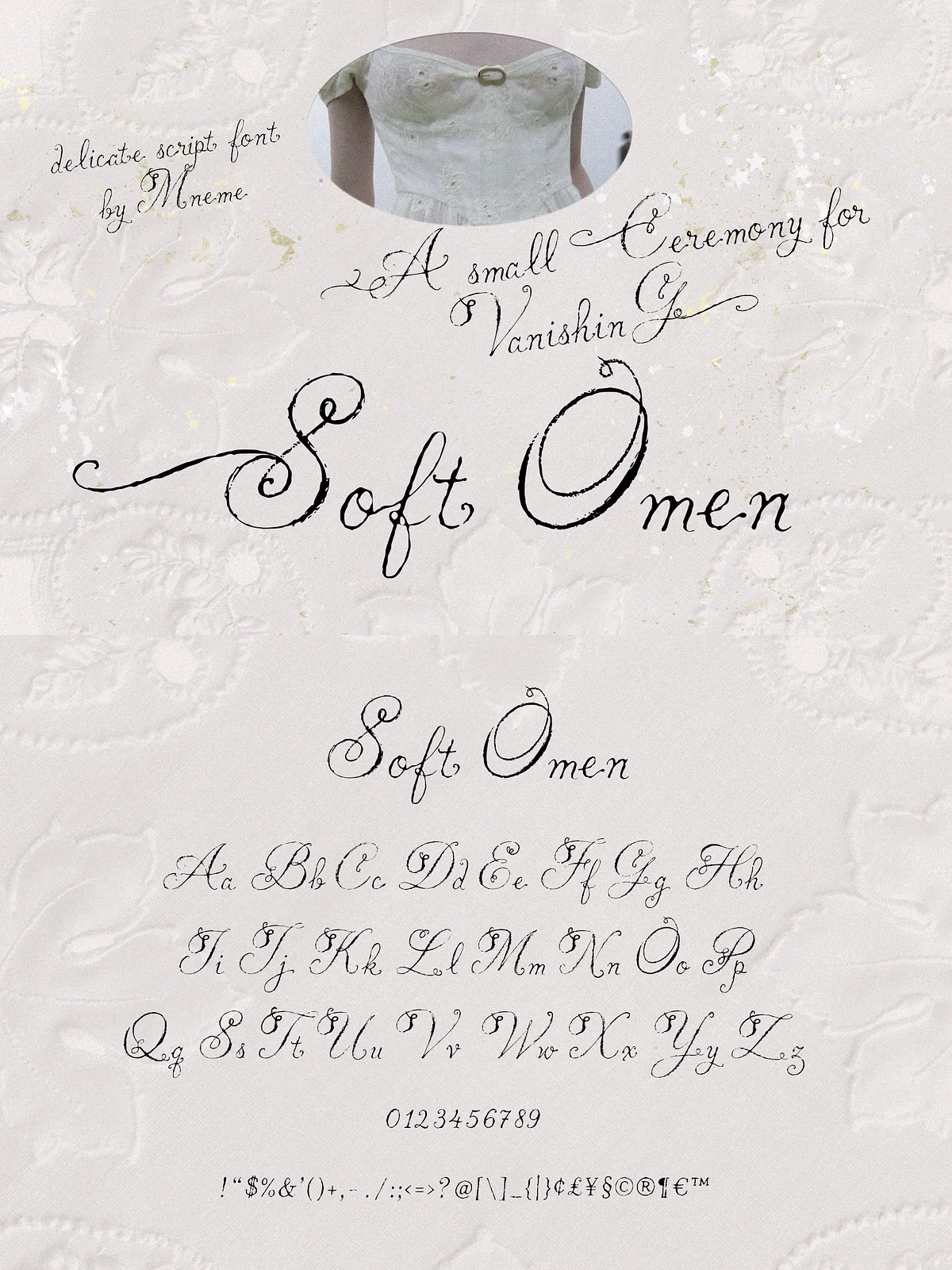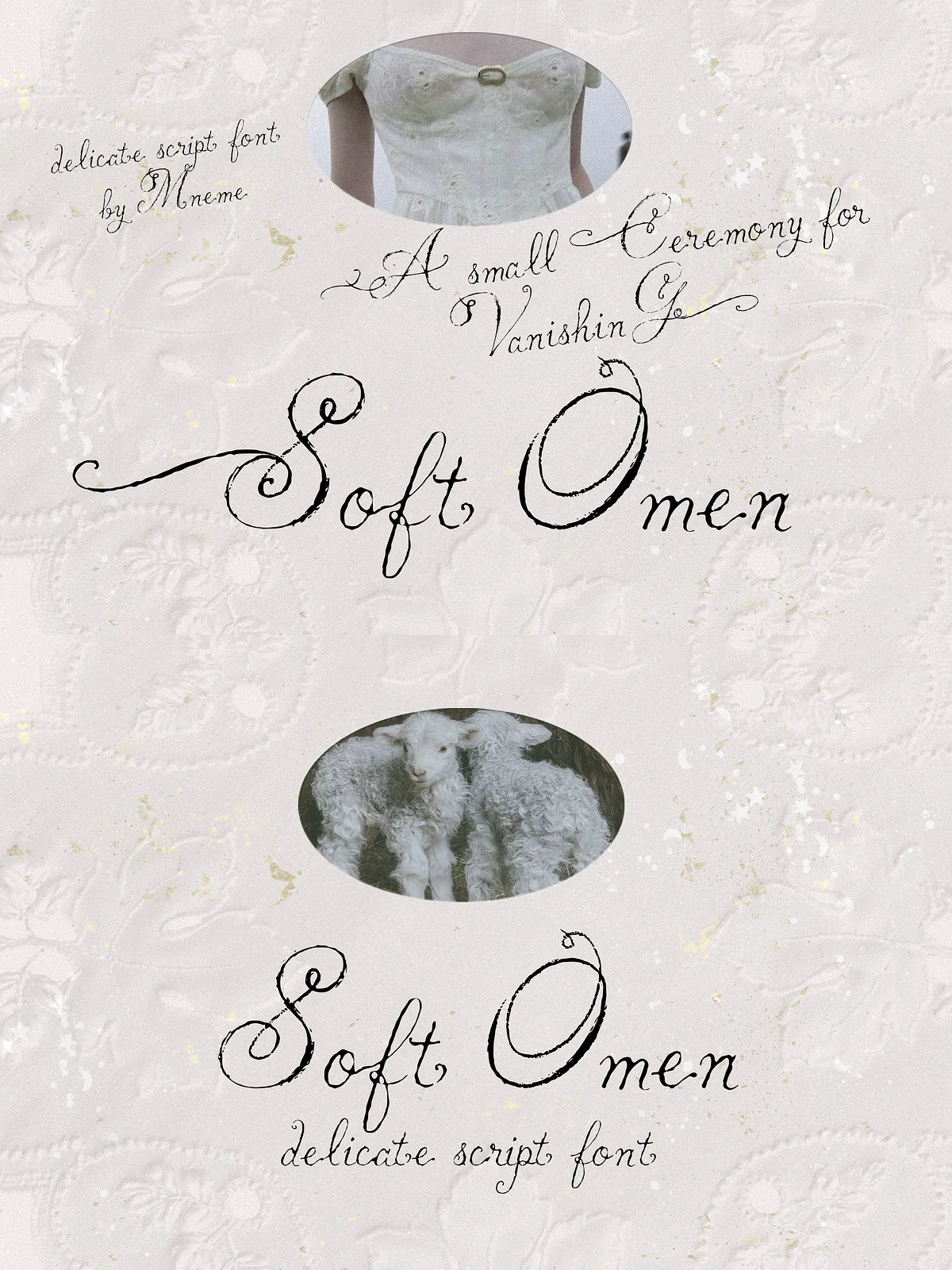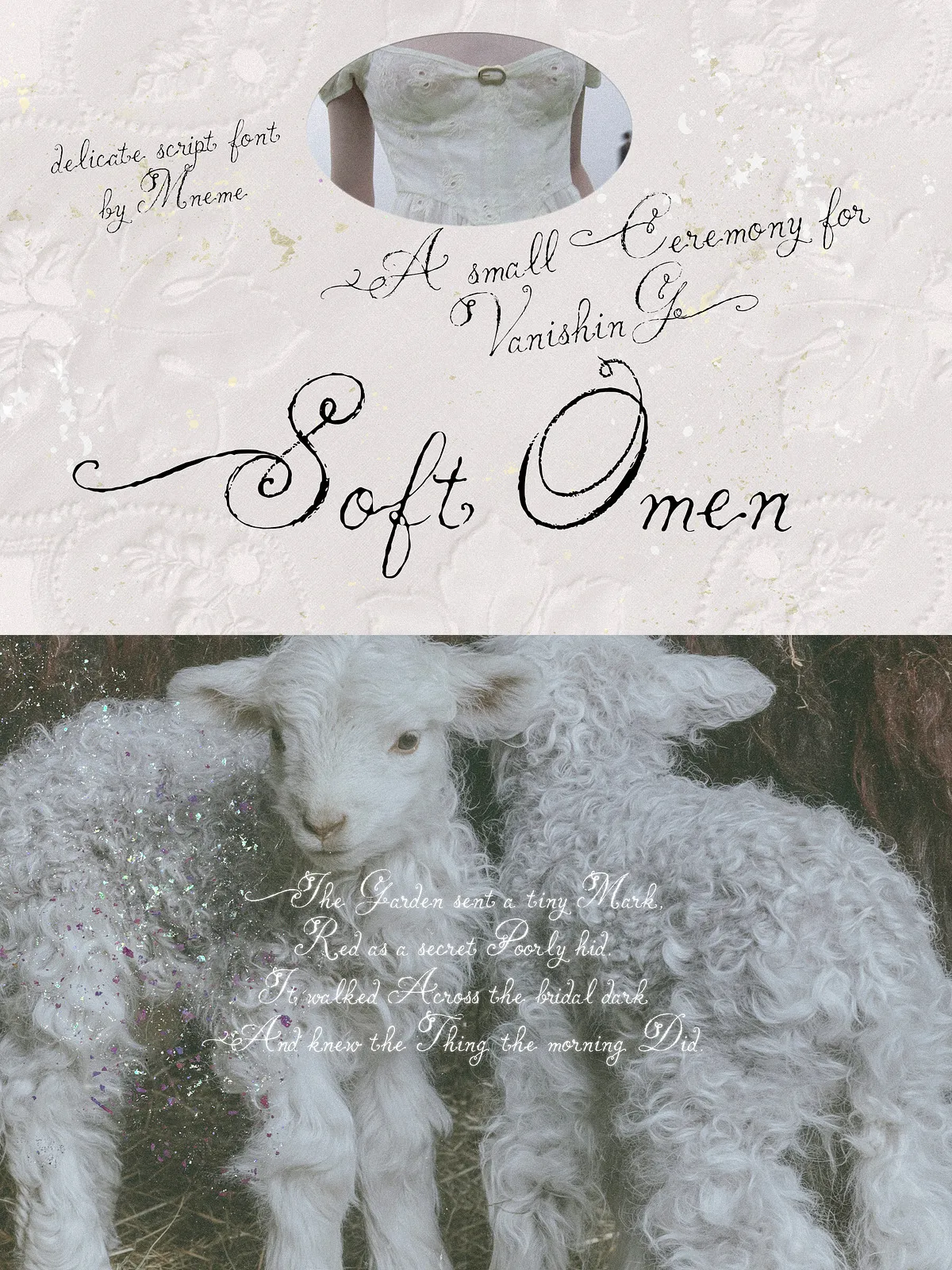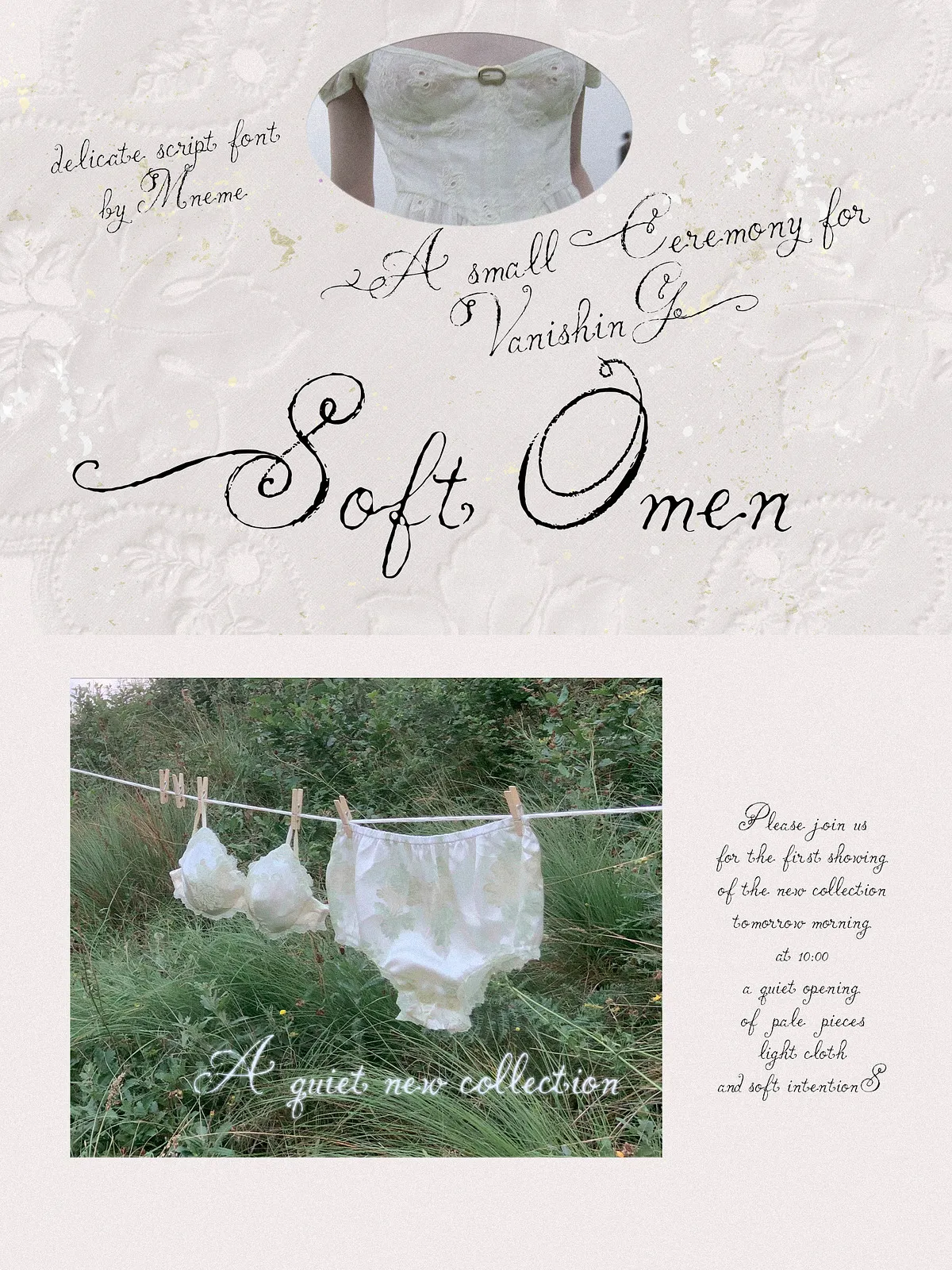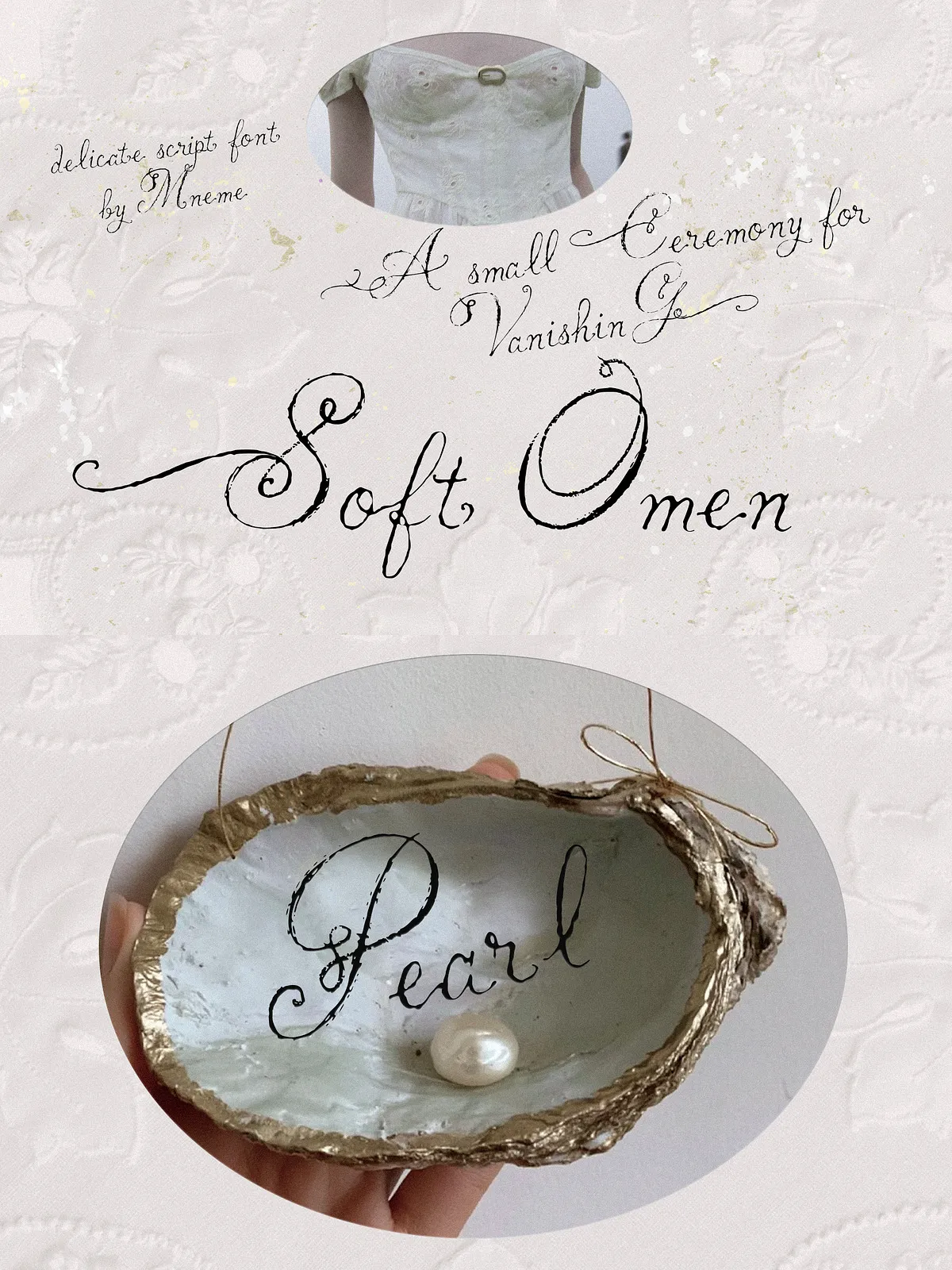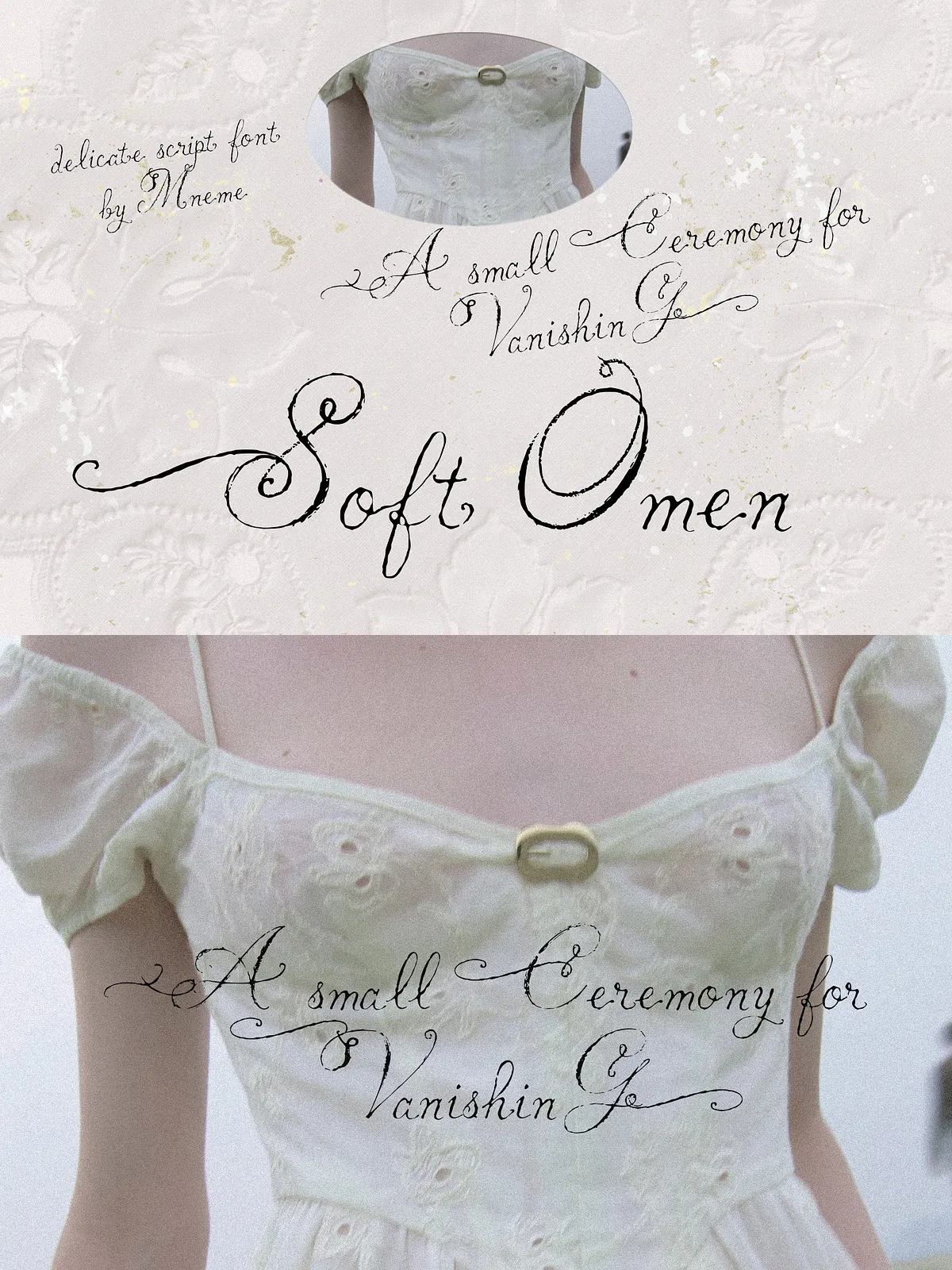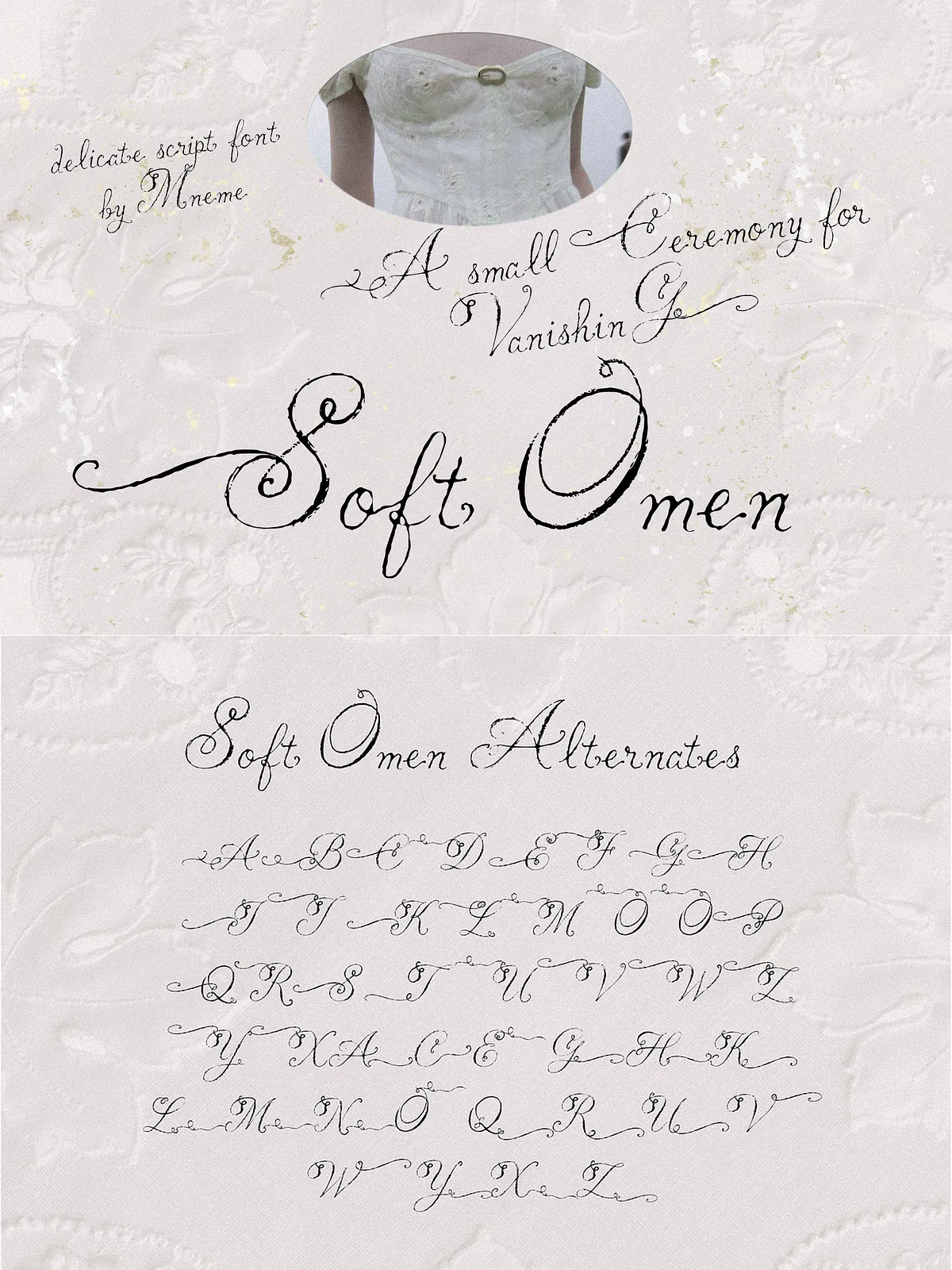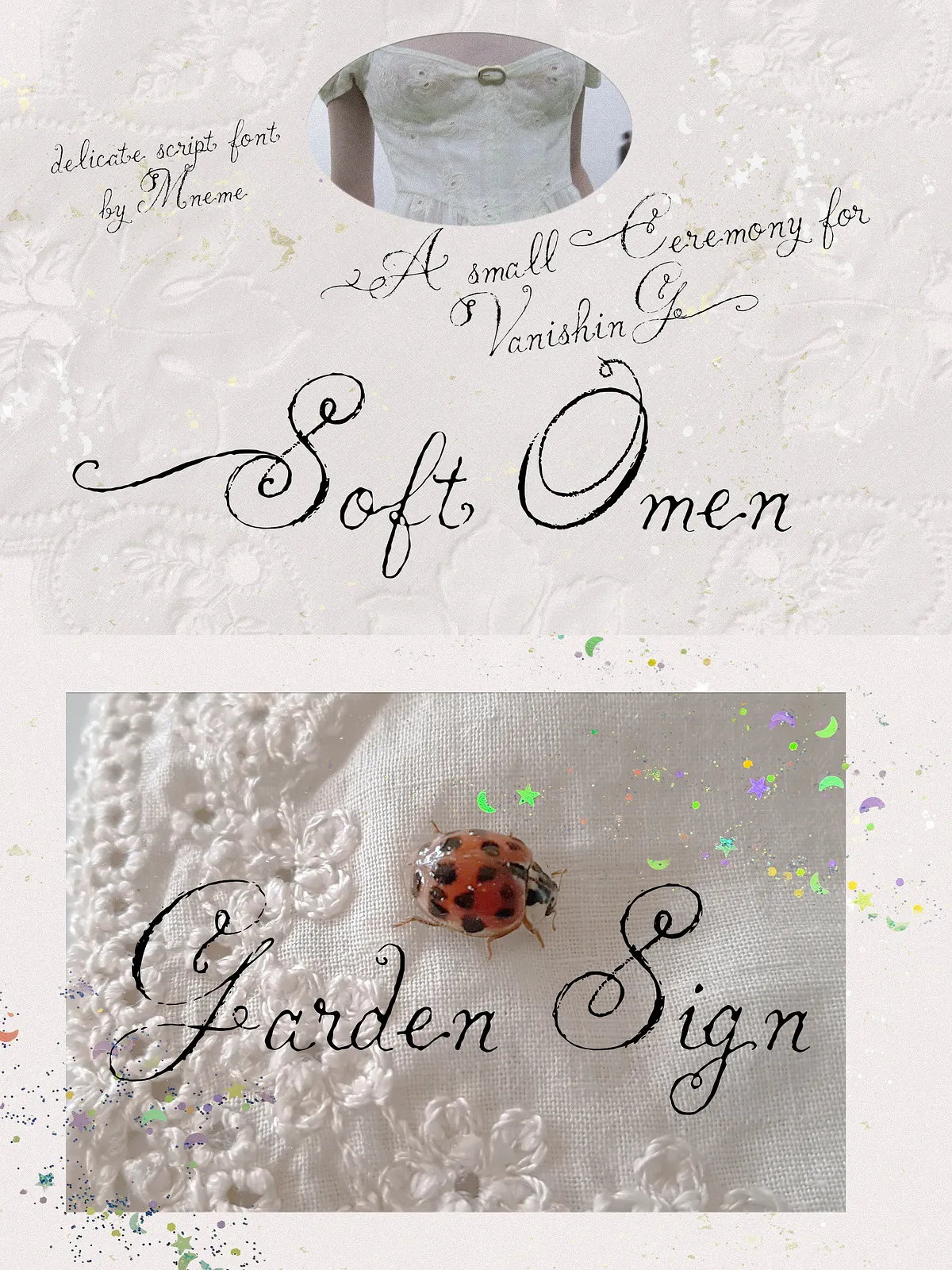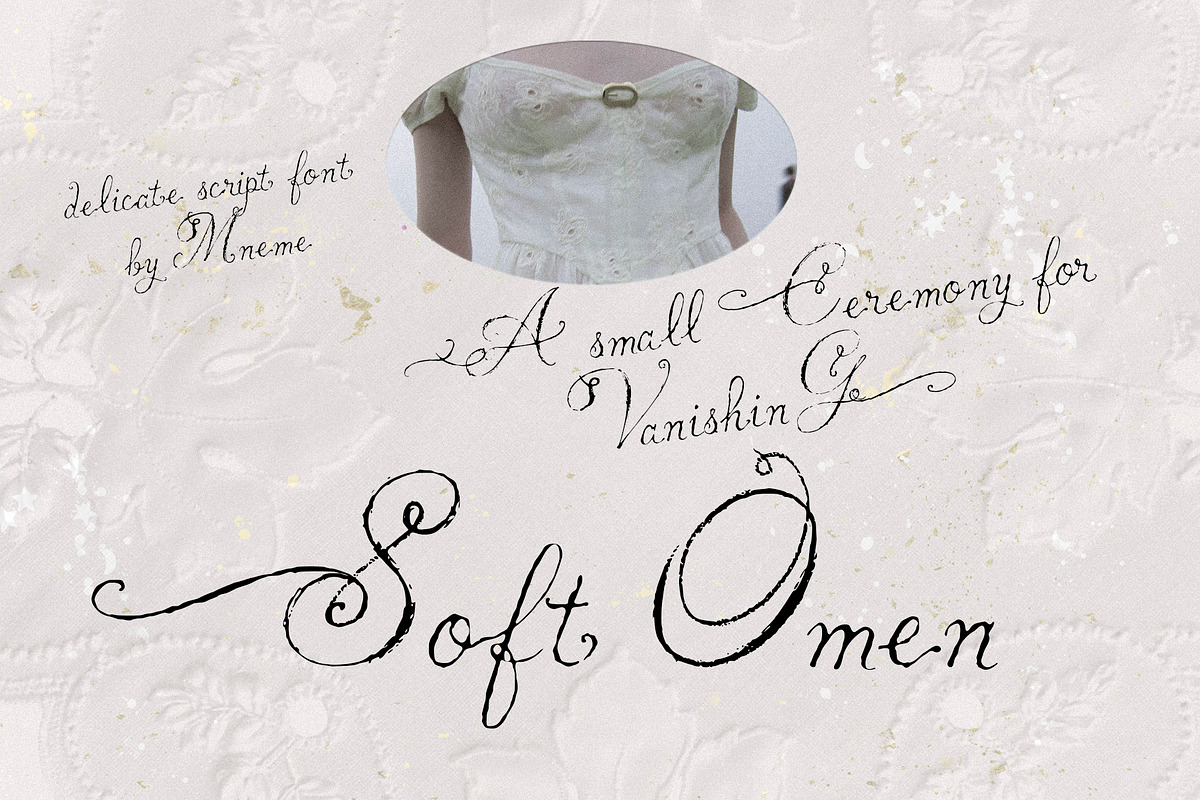
Soft Omen is a refined ornamental script typeface that combines fragile loops, antique curves, and a gentle handwritten rhythm. The design emphasizes graceful motion and ornamental detail, making it ideal for projects that require a romantic, sophisticated voice. Use Soft Omen to create invitations, editorial headers, boutique branding, and other designs that benefit from an elegant display face.
Design Features
Expressive Uppercase, Readable Lowercase
Soft Omen presents expressive, decorative uppercase letters that command attention in display settings while maintaining a readable, balanced lowercase for extended text. This contrast lets you set dramatic titles and maintain clarity in subheadings and short paragraphs.
Decorative Alternates and Swashes
The font includes a curated set of decorative alternates and swash characters that let you tailor the rhythm and flourish of each word. Use alternates to add bespoke touches to names, logos, and invitations without resorting to additional vector work.
Complete Character Set
Soft Omen ships with a complete set of typographic essentials: uppercase letters, lowercase letters, numerals, punctuation, and common symbols. The full character set ensures reliable behavior across design environments and supports clean composition for print and digital layouts.
- Uppercase & lowercase — expressive display capitals and readable text forms.
- Numbers & punctuation — consistent numerals and punctuation for editorial layouts.
- Symbols — basic symbols for clean composition.
- Decorative alternates & swashes — stylistic options to customize wordforms.
Perfect For
Soft Omen excels in applications that require refined personality and handcrafted charm. Designers use it for:
- Wedding invitations and bridal stationery
- Romantic and boutique branding
- Perfume and luxury product labels
- Editorial headers, book covers, and poetry layouts
- Social media quote graphics and sophisticated post designs
- Logotypes and monograms for lifestyle and hospitality brands
Practical Tips for Using Soft Omen
Pairing and Hierarchy
Pair Soft Omen with a neutral sans or a clean serif for body copy to maintain legibility. Use the ornamental uppercase for primary headings, then switch to the lowercase or supporting sans for subheadings and paragraphs. Establish typographic hierarchy by increasing weight, size, or tracking on display elements while keeping body text tighter for readability.
Using Swashes and Alternates
Apply swashes sparingly to avoid visual clutter. Choose alternates for initials, signatures, and brand marks where distinct character shapes enhance recognition. Activate OpenType features in your design software to access discretionary ligatures and stylistic sets for smooth connections and tailored letterforms.
Spacing and Kerning
Fine-tune tracking and kerning when setting large display headlines. Soft Omen’s ornamental forms can create tight counter shapes; manually adjust spacing in tight lockups to ensure consistent optical balance across letter combinations.